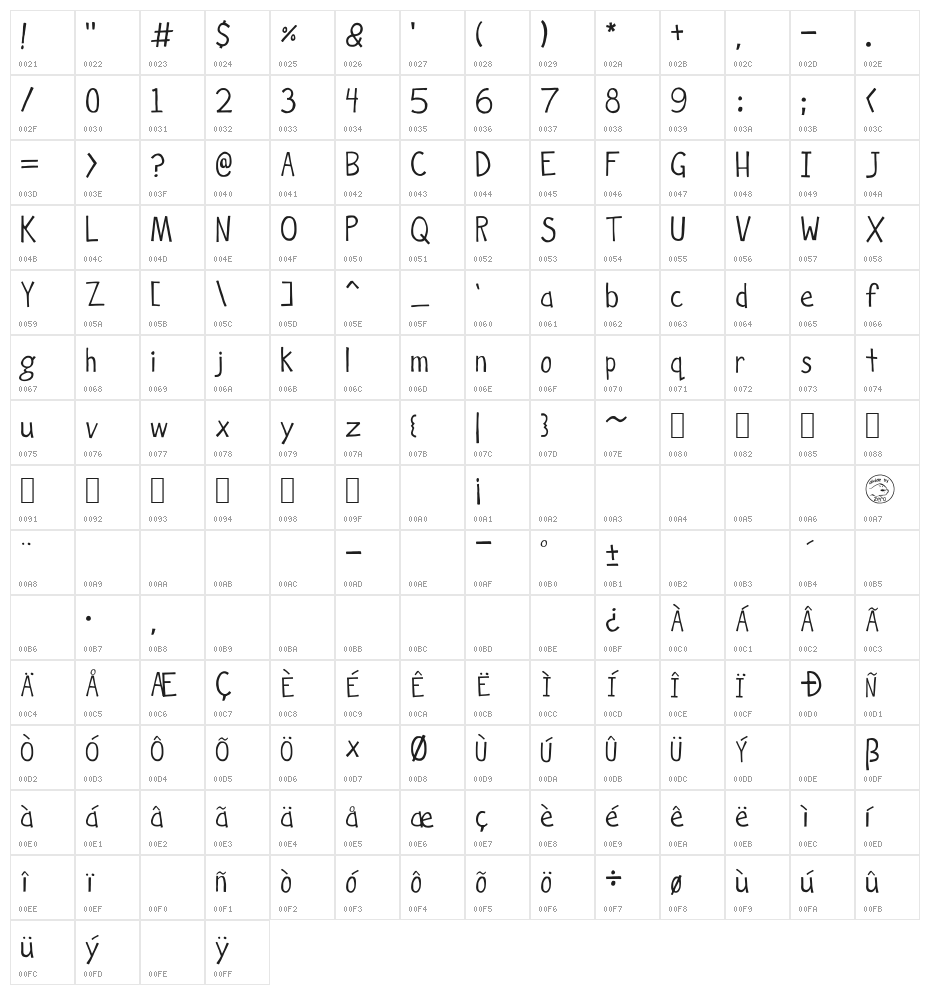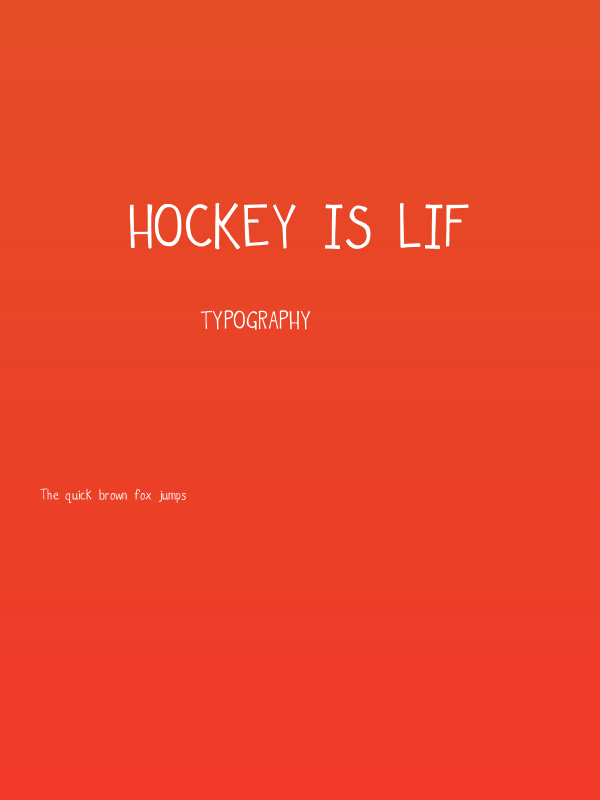
Hockey is Lif Font
Hockey is Lif Description
This font features a playful and informal handwritten style, characterized by its uneven strokes and slightly irregular letterforms. The uppercase and lowercase letters maintain a consistent height, giving it a cohesive look despite the casual appearance. The numerals and special characters follow the same whimsical style, making it suitable for projects that require a personal touch. The font's charm lies in its imperfect lines and quirky angles, which add a sense of authenticity and warmth. It's perfect for designs that aim to convey friendliness and approachability.
| Use Case | Headlines, Informal text, Personal projects |
| Proposed Projects | Ideal for children's books, greeting cards, personal blogs, and informal branding. |